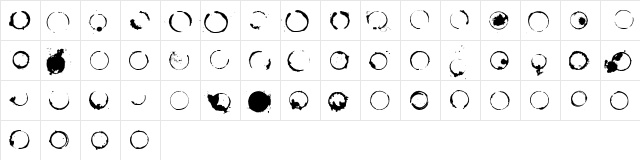
Cafeina Dig_v2 Normal
Design Context for Cafeina Dig_v2 Typeface
Cafeina Dig_v2 is a composed and adaptable typeface that performs quietly and consistently across a wide range of design contexts.